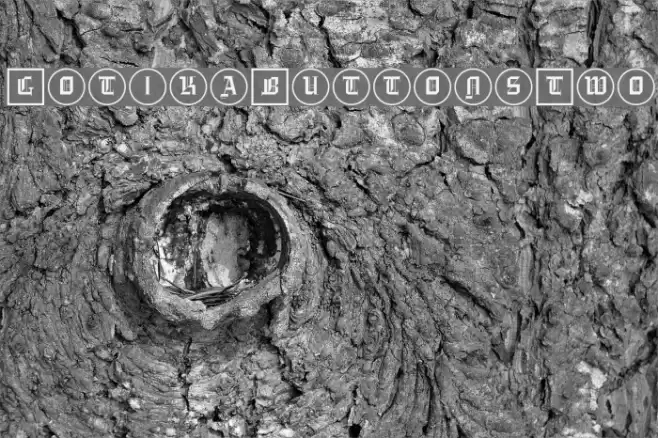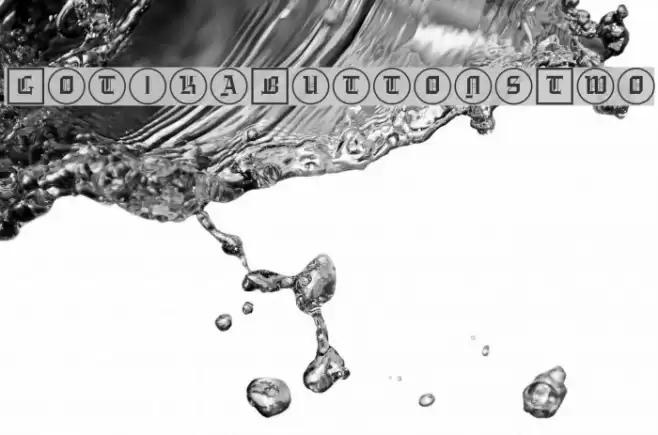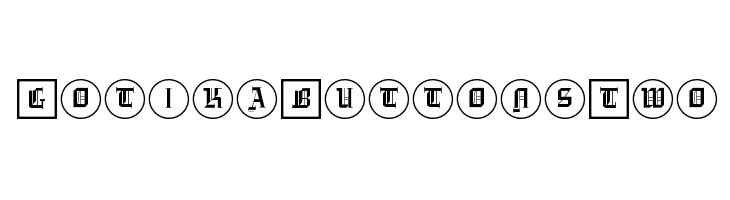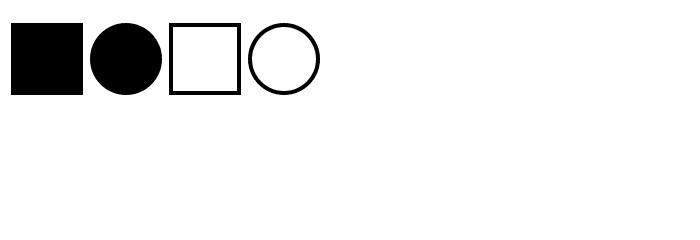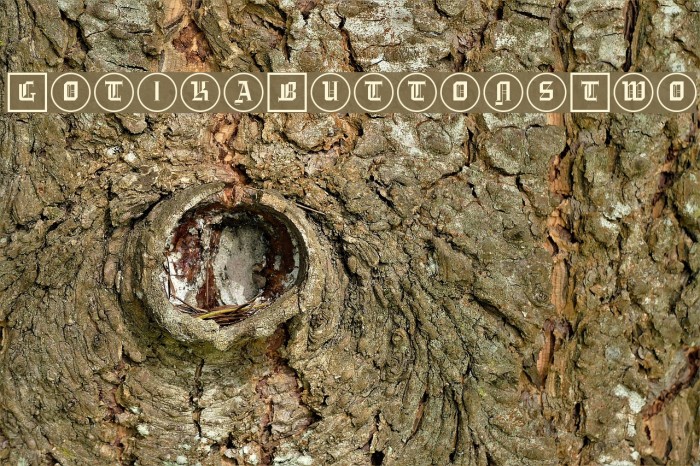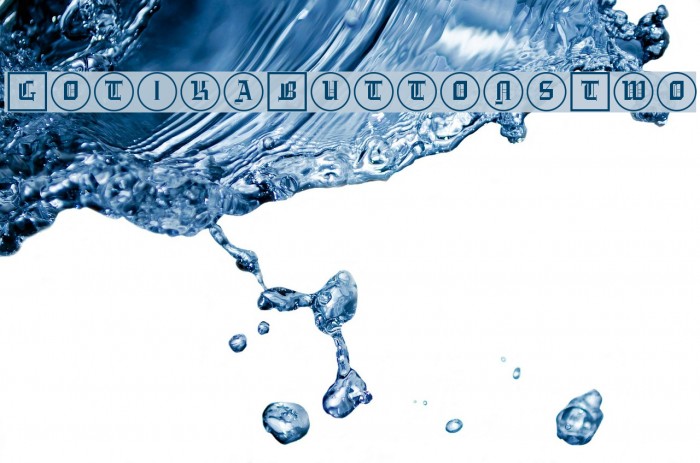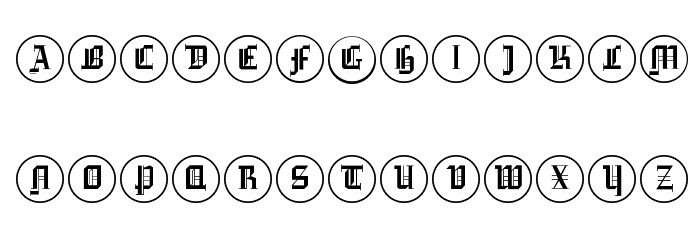
GotikaButtonsTwo Font
GotikaButtonsTwo Description
This font features a bold, decorative style with a distinct Gothic influence. Each letter is encased in a square or circular border, adding a unique, button-like appearance. The characters are highly stylized with sharp angles and intricate details, reminiscent of medieval script. The uppercase letters are particularly ornate, while the lowercase letters maintain a consistent design. This font is ideal for projects that require a dramatic and eye-catching display, such as posters, logos, or themed event invitations.
A bold, Gothic-inspired decorative font with unique encased letters from Uncategorized fonts.
- Proposed Projects: Ideal for posters, logos, themed event invitations, and any project requiring a dramatic display.
- Overall Style: Gothic, Decorative